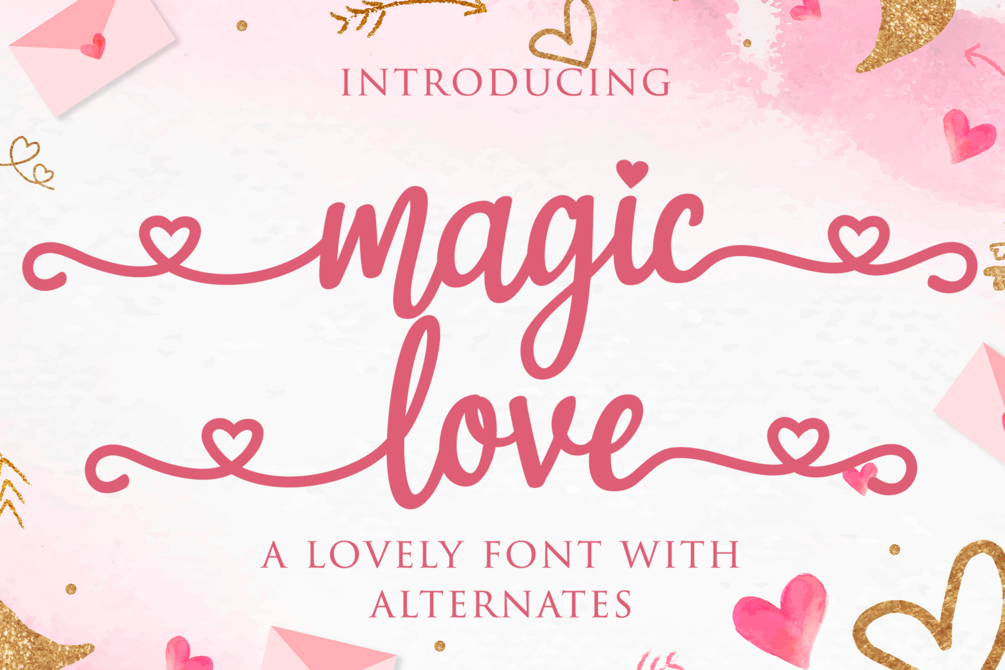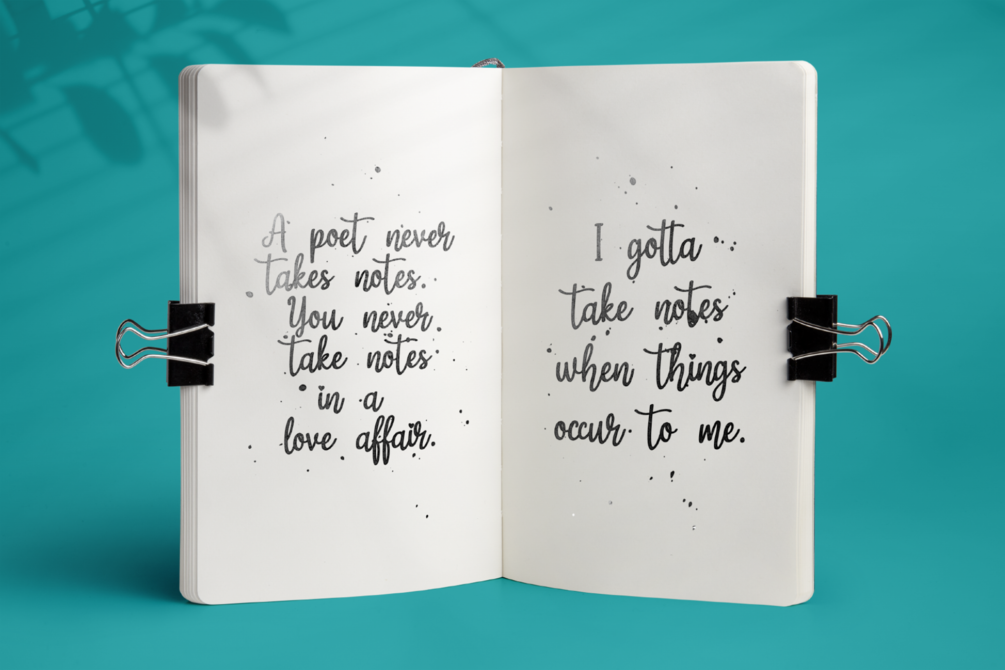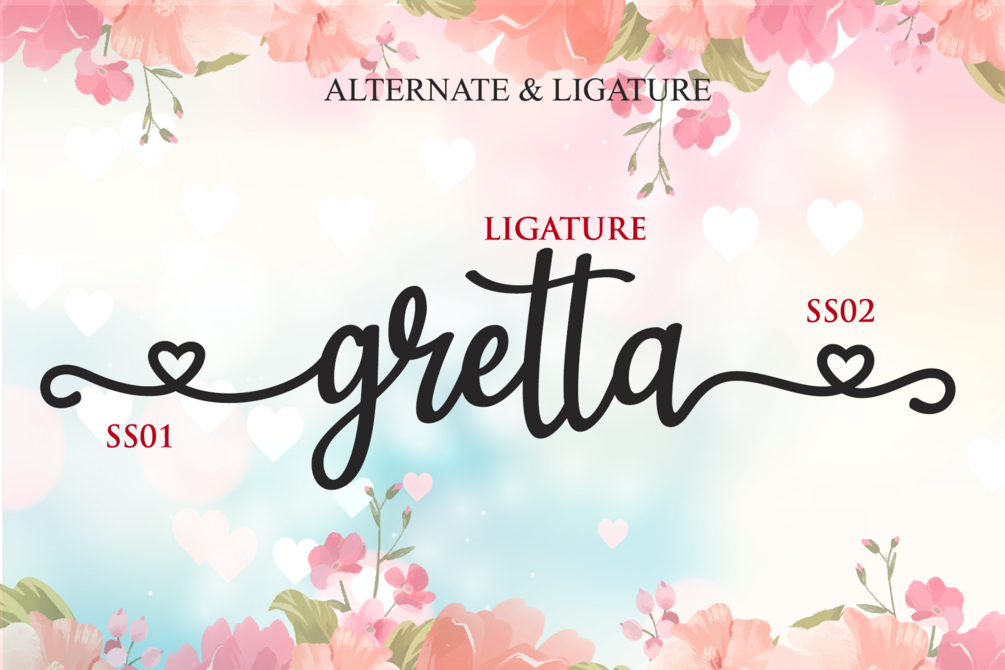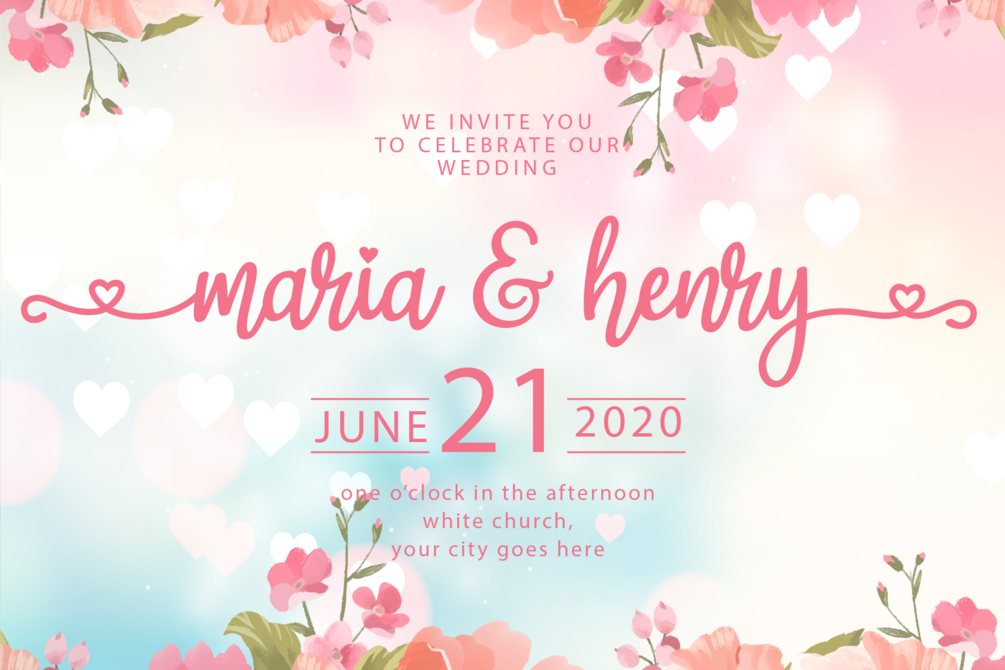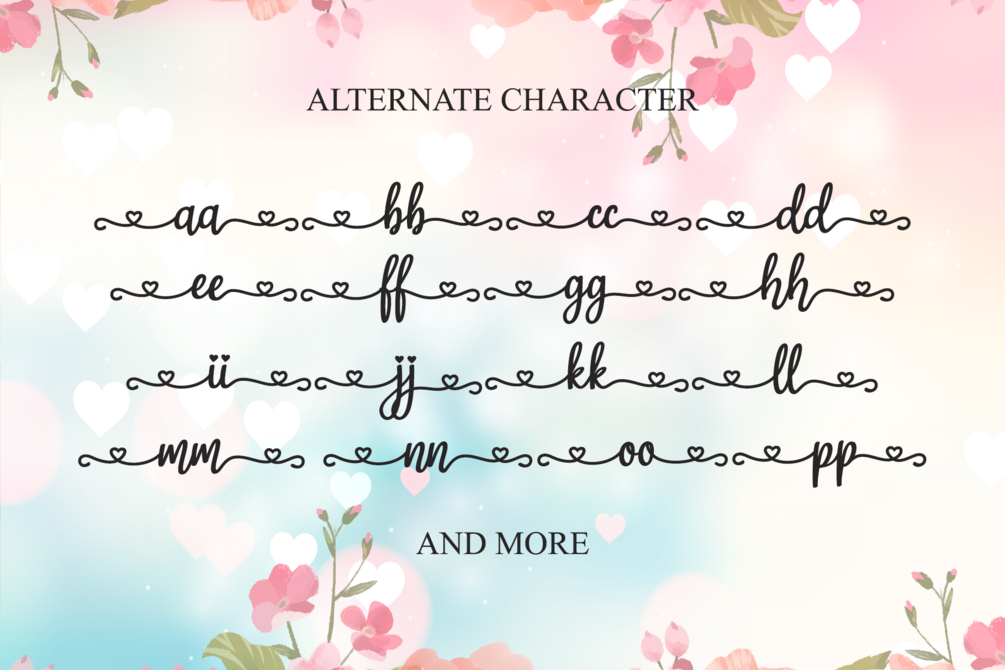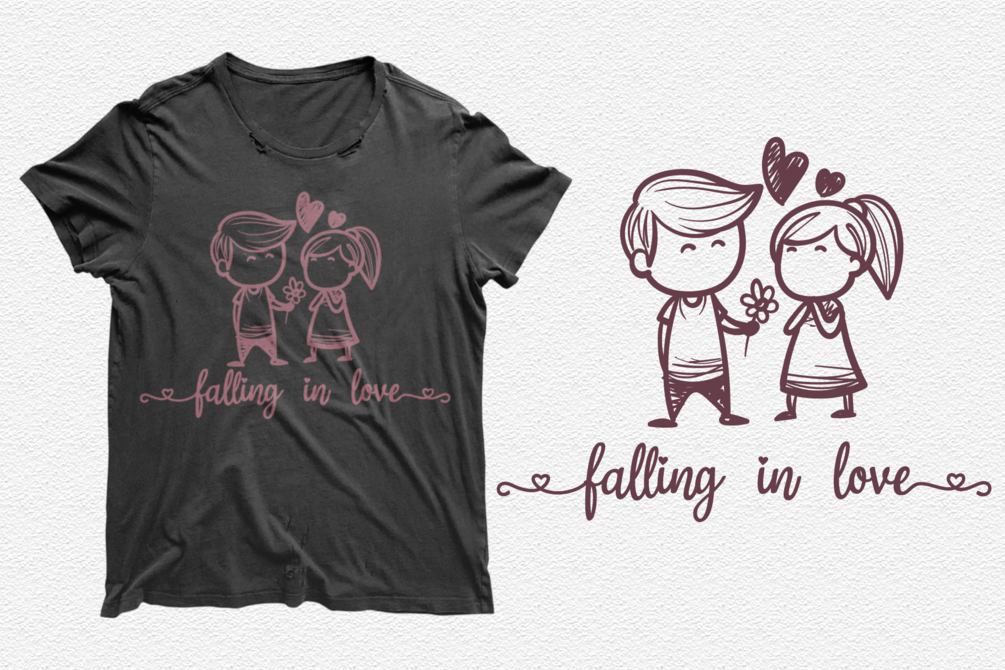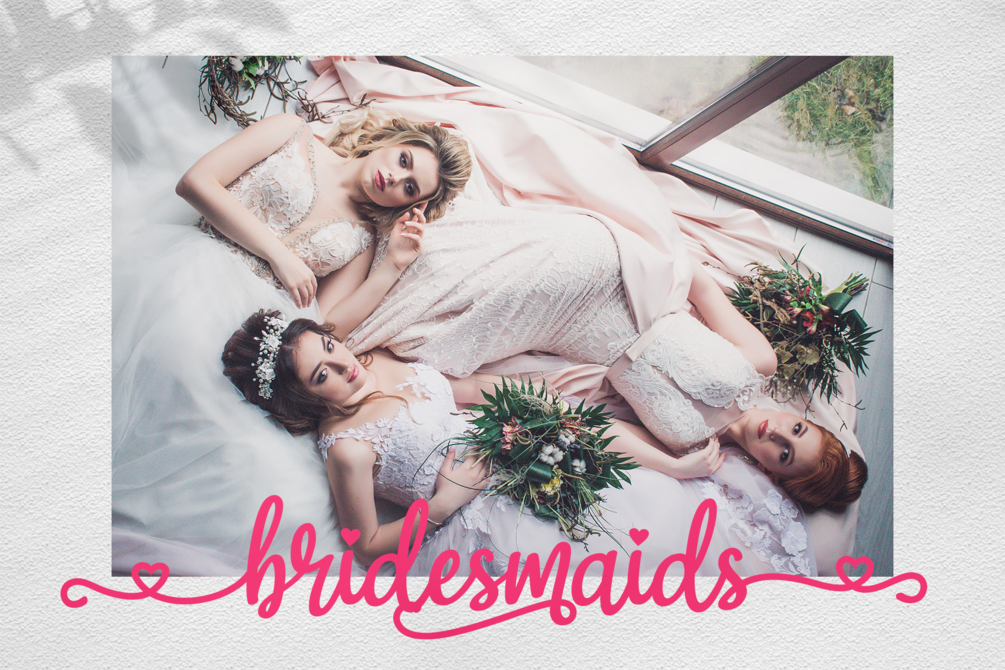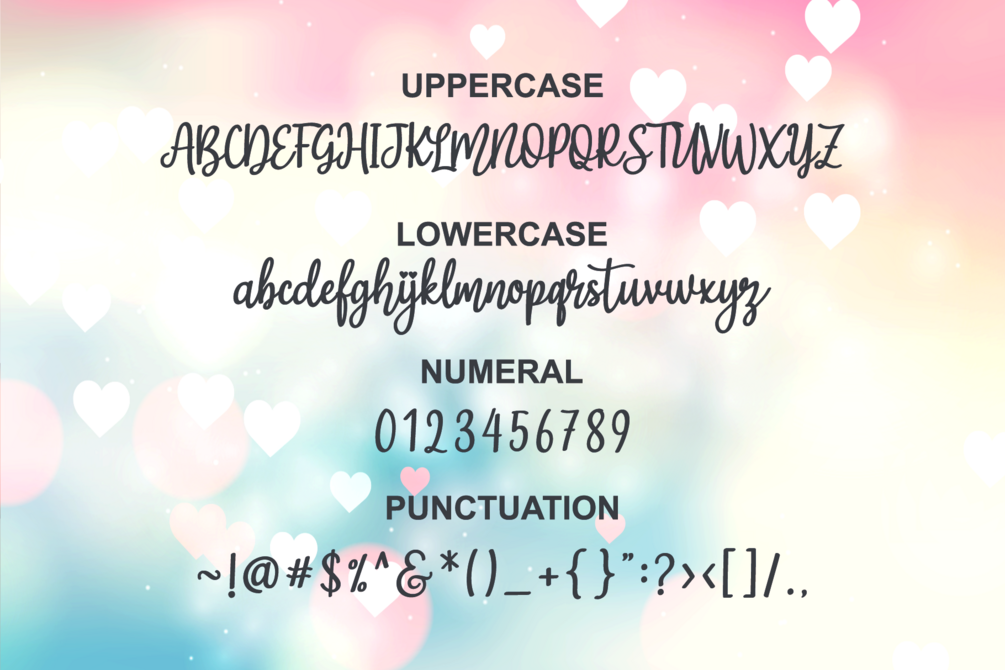
Magic Love
Introducing,
Magic Love is mazing hand lettering look attractive and natural!
Every single letters have been carefully crafted to make your text looks beautiful.
This font includes over 260 glyphs, including over 57 alternate characters with swashes.
It has over 60 extended Latin characters for language support.
This font is suitable for invitation, branding, advertising, poster design etc, and also this font is PUA encoded so all characters are accessible via Character Map, Font Book, or the font management program of your choice.